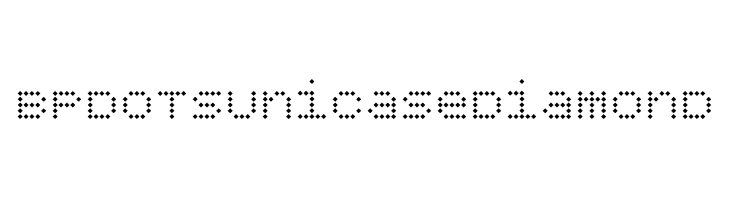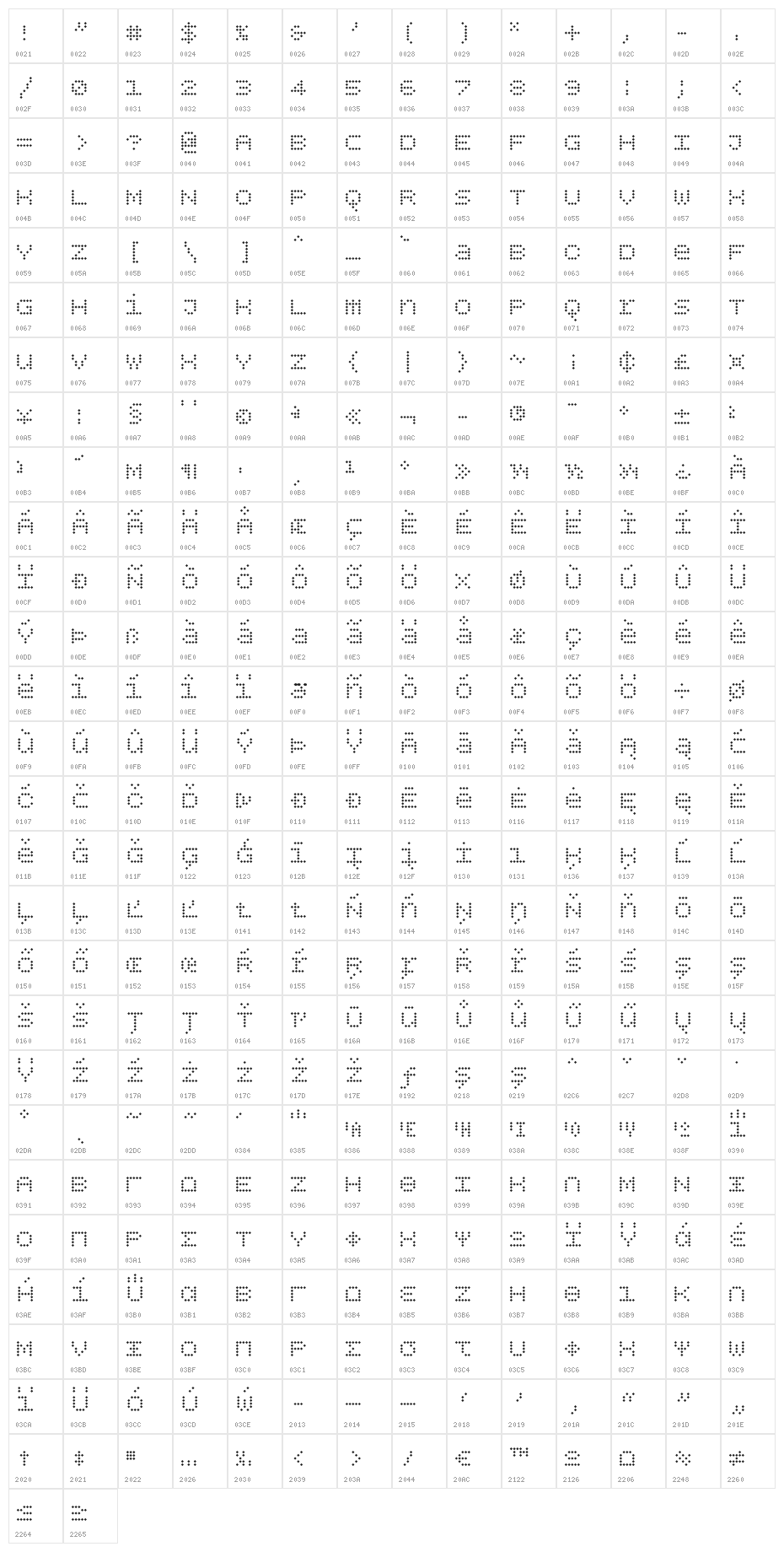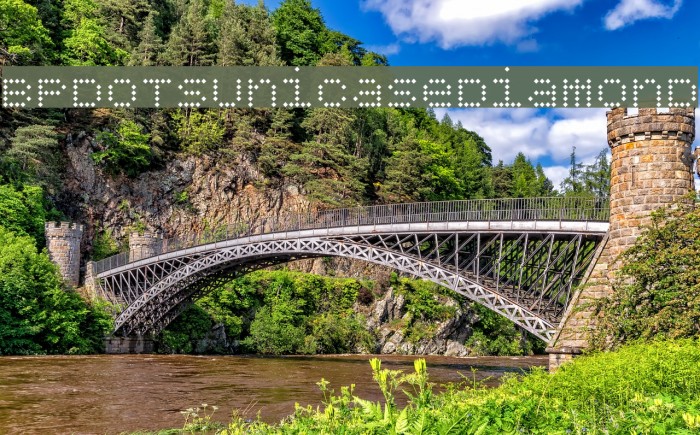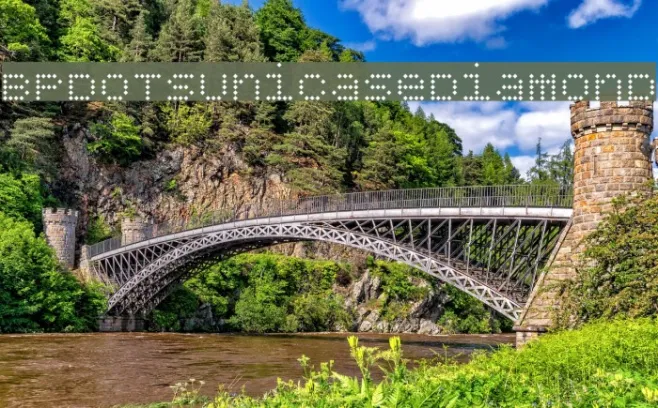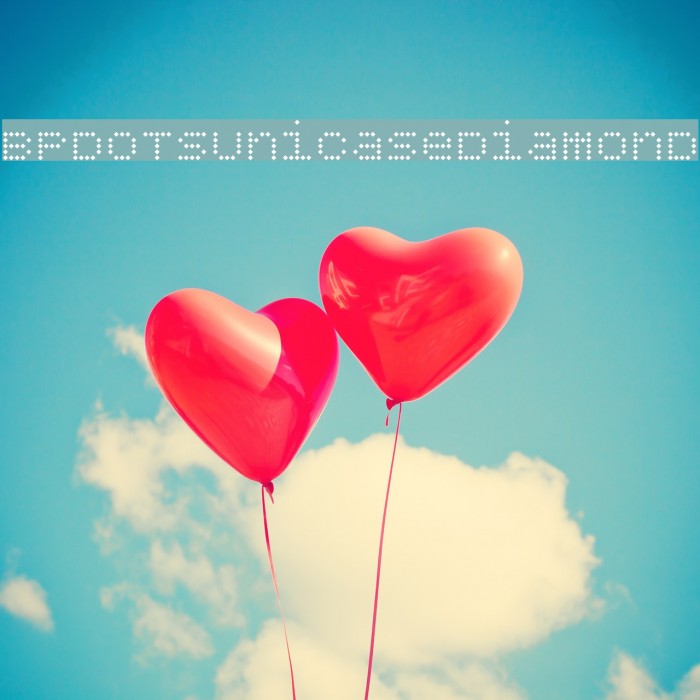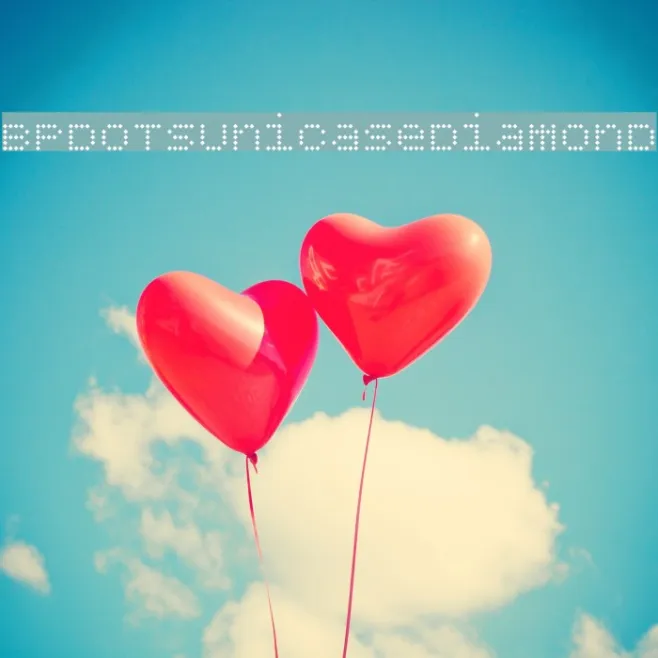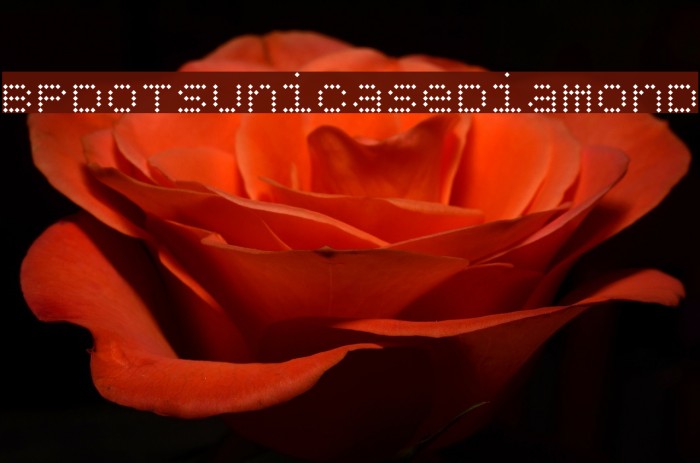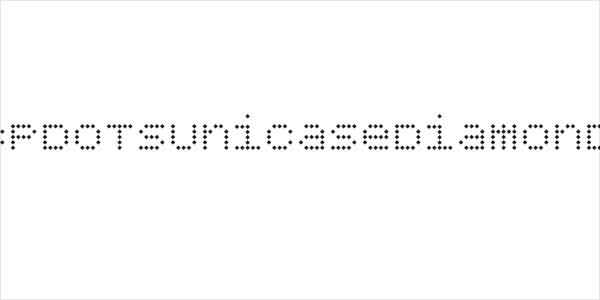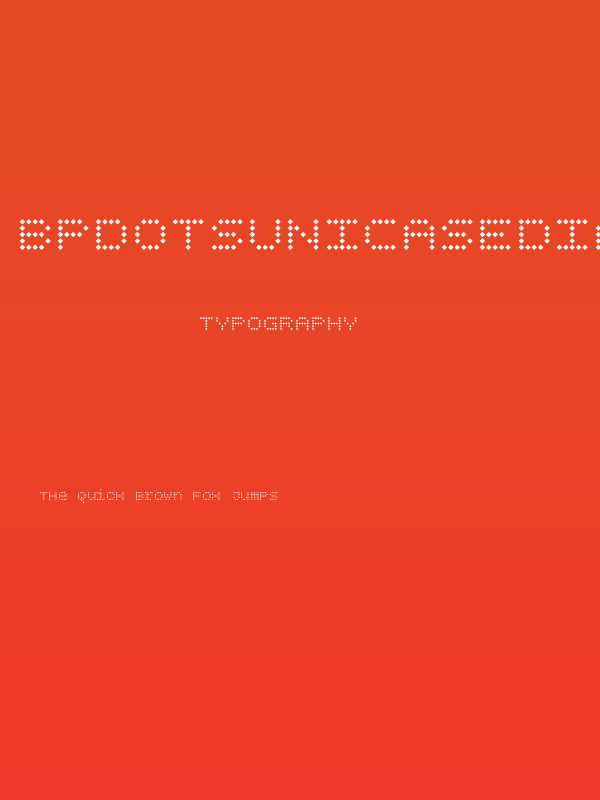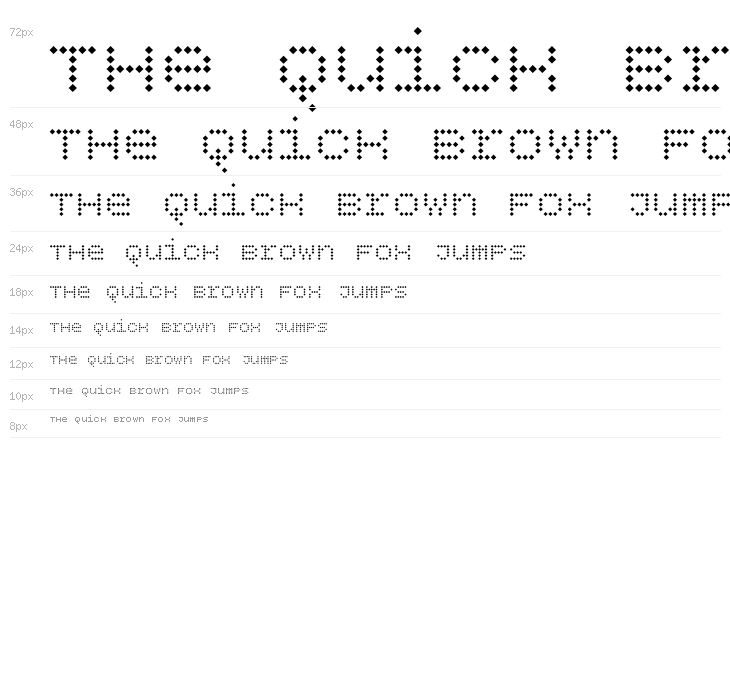
BPdotsUnicaseDiamond Font
BPdotsUnicaseDiamond Description
This font features a unique design composed entirely of diamond-shaped dots, creating a distinct and modern appearance. Each character is constructed with precision, maintaining uniformity across both uppercase and lowercase letters, as well as numerals and special characters. The geometric pattern gives it a digital, pixelated feel, making it stand out in any design project. The spacing between the dots is consistent, providing a clean and organized look. This font is ideal for projects that require a futuristic or tech-inspired aesthetic, offering a playful yet sophisticated vibe.
| Use Case | Headlines, Logos, Digital Art |
| Proposed Projects | Ideal for digital art, tech branding, futuristic posters, and creative advertising. |